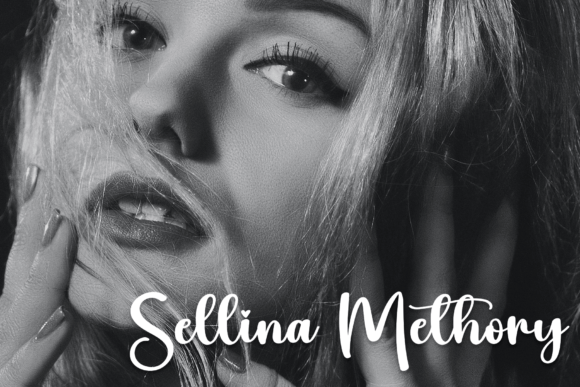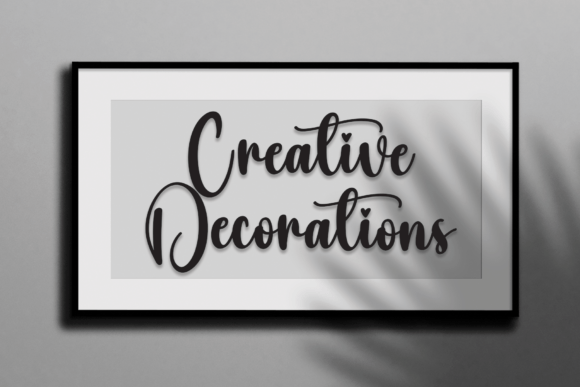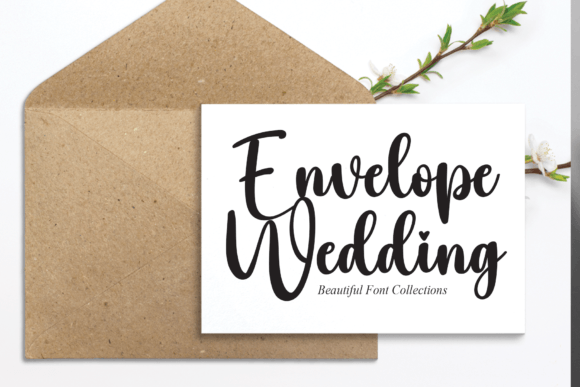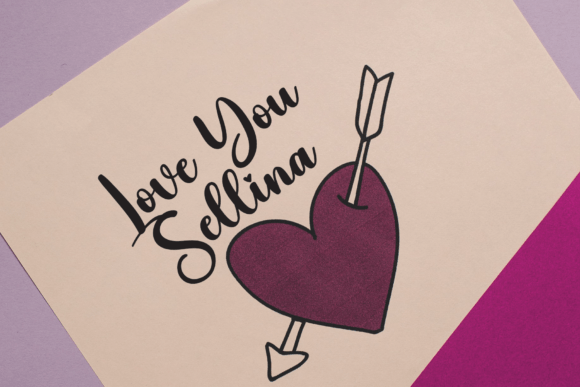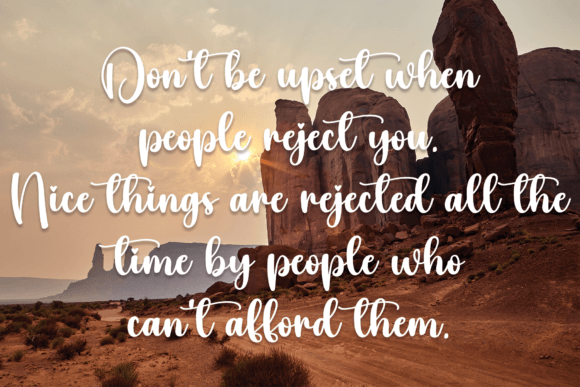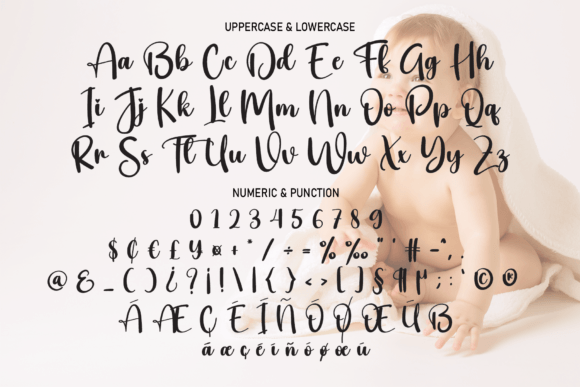
Introducing Bonny Font: The Perfect Handwritten Style for Your Creative Projects
Are you a designer, crafter, or DIY enthusiast looking for a unique and stylish font to elevate your creative projects? Look no further than Bonny Font, the latest addition to the world of handwritten typography. Bonny’s latest style letters are perfect for a wide range of applications, from wall displays and wedding invitations to social media post logos, advertisements, product packaging, and more.
What Makes Bonny Font So Special?
Bonny Font is a beautifully crafted handwritten font that exudes elegance, sophistication, and a touch of playfulness. Its unique lettering style is perfect for adding a personal touch to any project, making it stand out from the crowd. Whether you’re looking to create a stunning visual display, a beautiful wedding invitation, or a captivating social media post, Bonny Font is the perfect choice.
Endless Possibilities with Bonny Font
One of the best things about Bonny Font is its versatility. The font can be used for a wide range of creative projects, including:
- Wall displays and signage
- Social media post logos and graphics
- Advertisements and marketing materials
- Product packaging and labeling
- Product designs and branding
- Photography and watermarking
- Invitations and party decor
- Stationery and journaling
Why Choose Bonny Font?
So, why choose Bonny Font over other handwritten fonts? Here are just a few reasons:
- Unique and stylish: Bonny Font has a distinctive lettering style that is both elegant and playful.
- Versatile: The font can be used for a wide range of creative projects, from digital designs to print materials.
- High-quality: The font is crafted with high-quality lettering, ensuring that it looks great in any size or resolution.
Tips for Using Bonny Font
Here are a few tips for using Bonny Font in your creative projects:
- Experiment with different sizes and colors: Bonny Font looks great in a variety of sizes and colors, so don’t be afraid to experiment and find the perfect combination for your project.
- Pair with other fonts: Bonny Font pairs well with other fonts, so try combining it with a sans-serif font for a modern look or a serif font for a more traditional look.
- Use it for headlines and titles: Bonny Font is perfect for headlines and titles, where its unique lettering style can really shine.